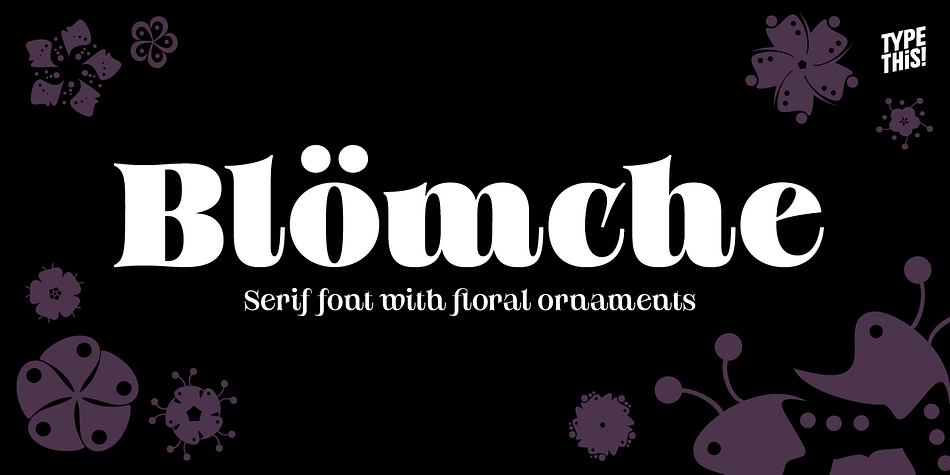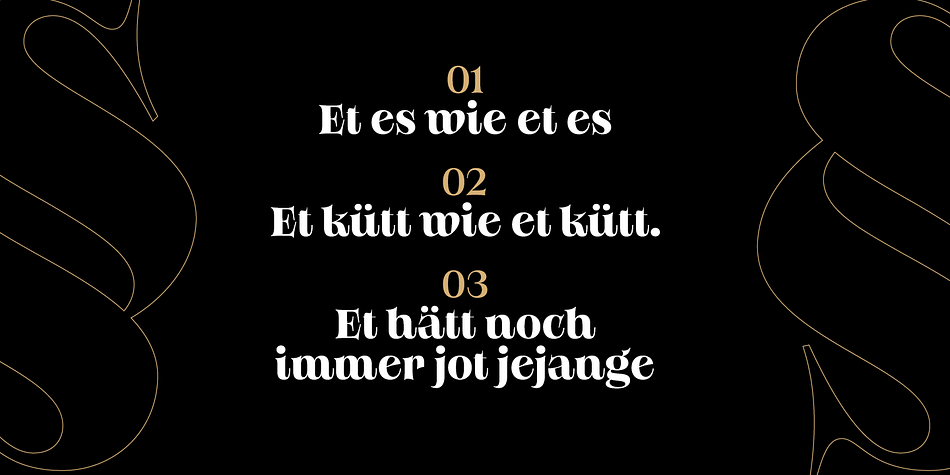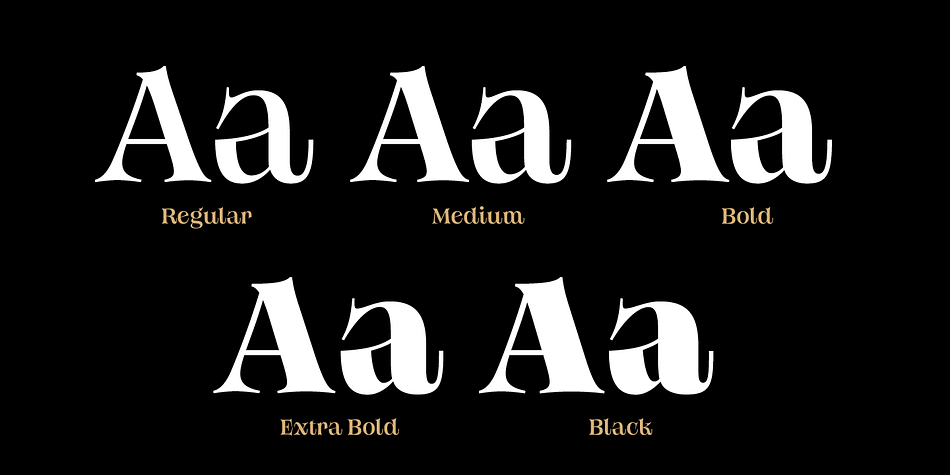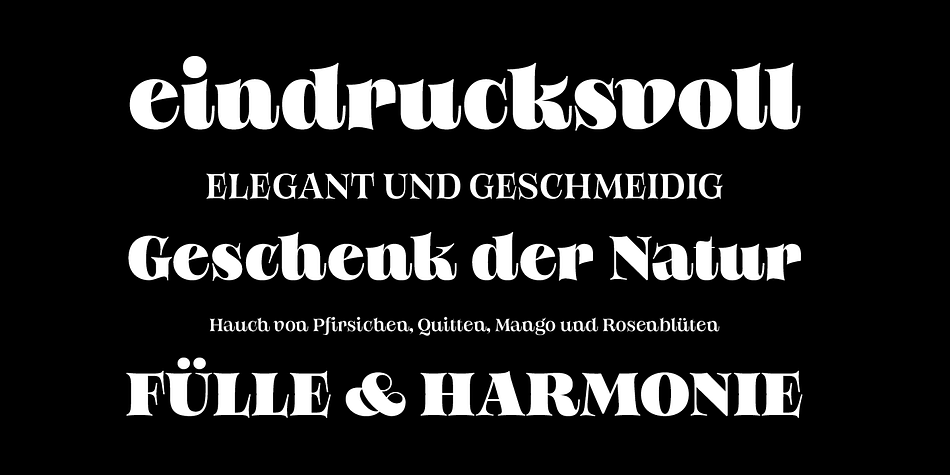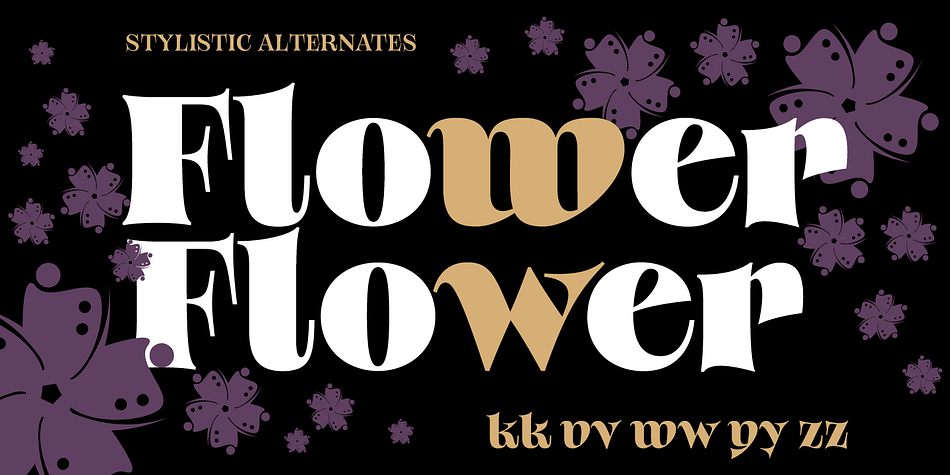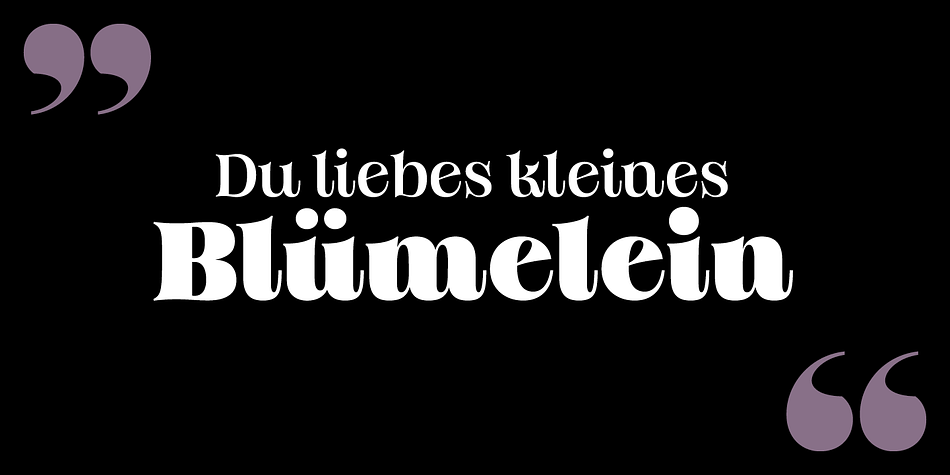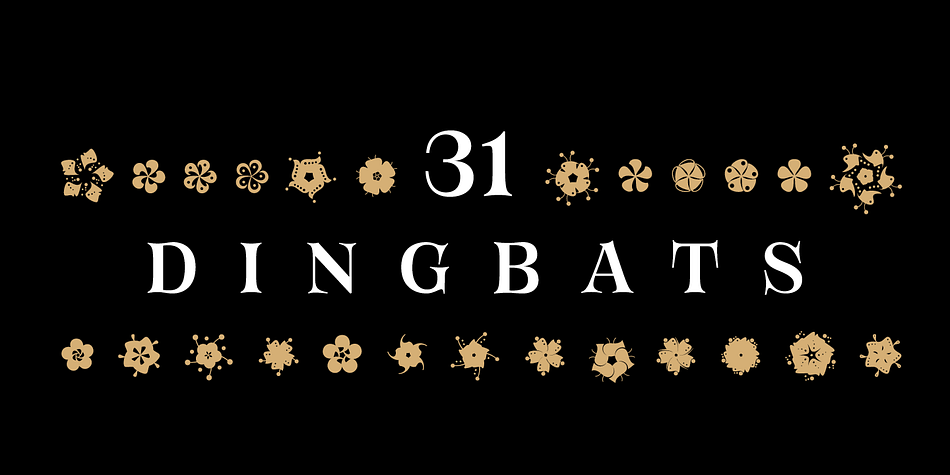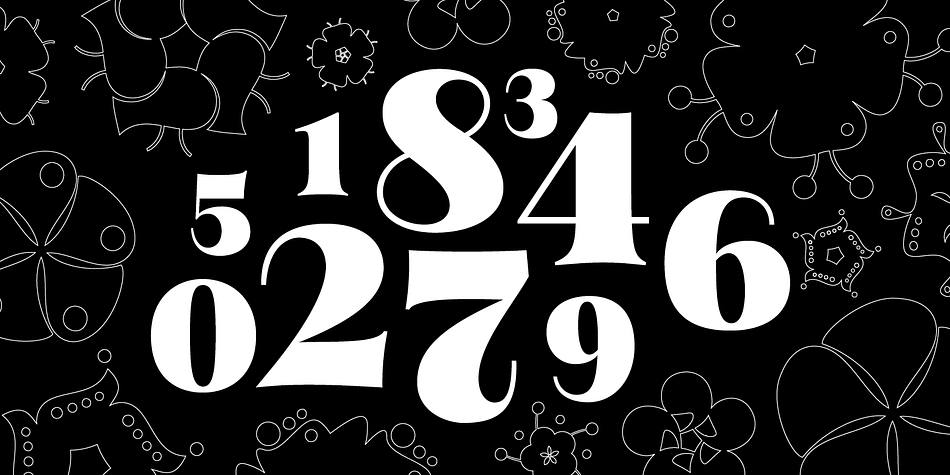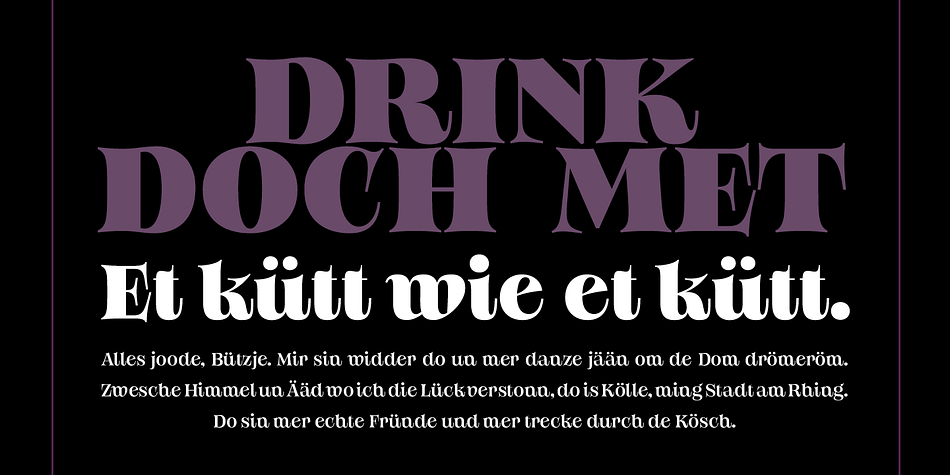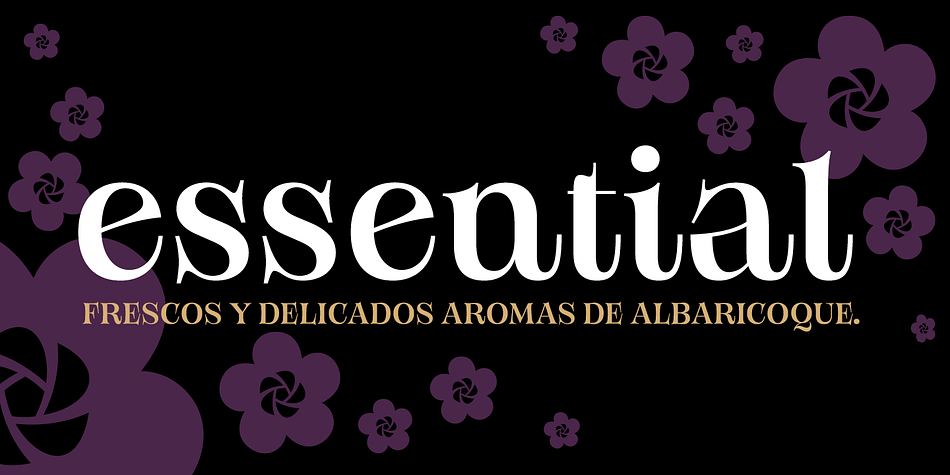
Designed by Anita Jürgeleit, Bloemche is a display serif and dingbat font family. This typeface has six styles and was published by TypeThis!Studio.
It’s spring time and this is my tribute to the wonderful city of Colonia!
Bloemche is a warm-hearted display serif font combining a set of floral symbols with an extravagant semi-script style. It is perfect for blogging a revitalizing style into the loveliest season. Create floral typography dreams and socialise with the people around you.
Typeface Features
- 711 Glyphs
- 45 Stylistic Alternates
- 6 Styles: Regular, Medium, Bold, Extra Bold, Black, Flowers
- Full Latin Language Support
- Numerators/Denominators
- Sub- and Superscript
- Fractions
- Ordinals
- Standard Ligatures
- Slashed Zero